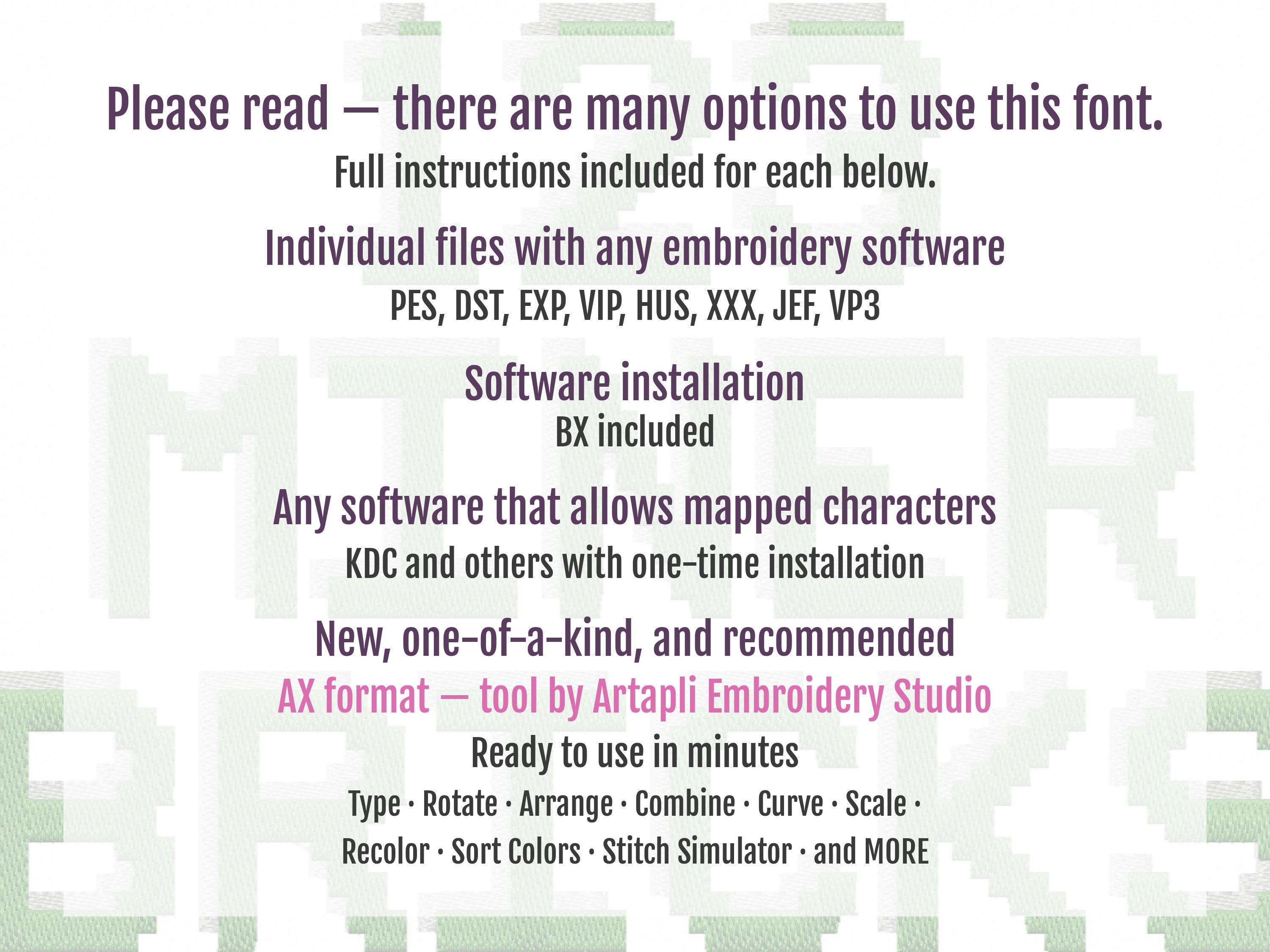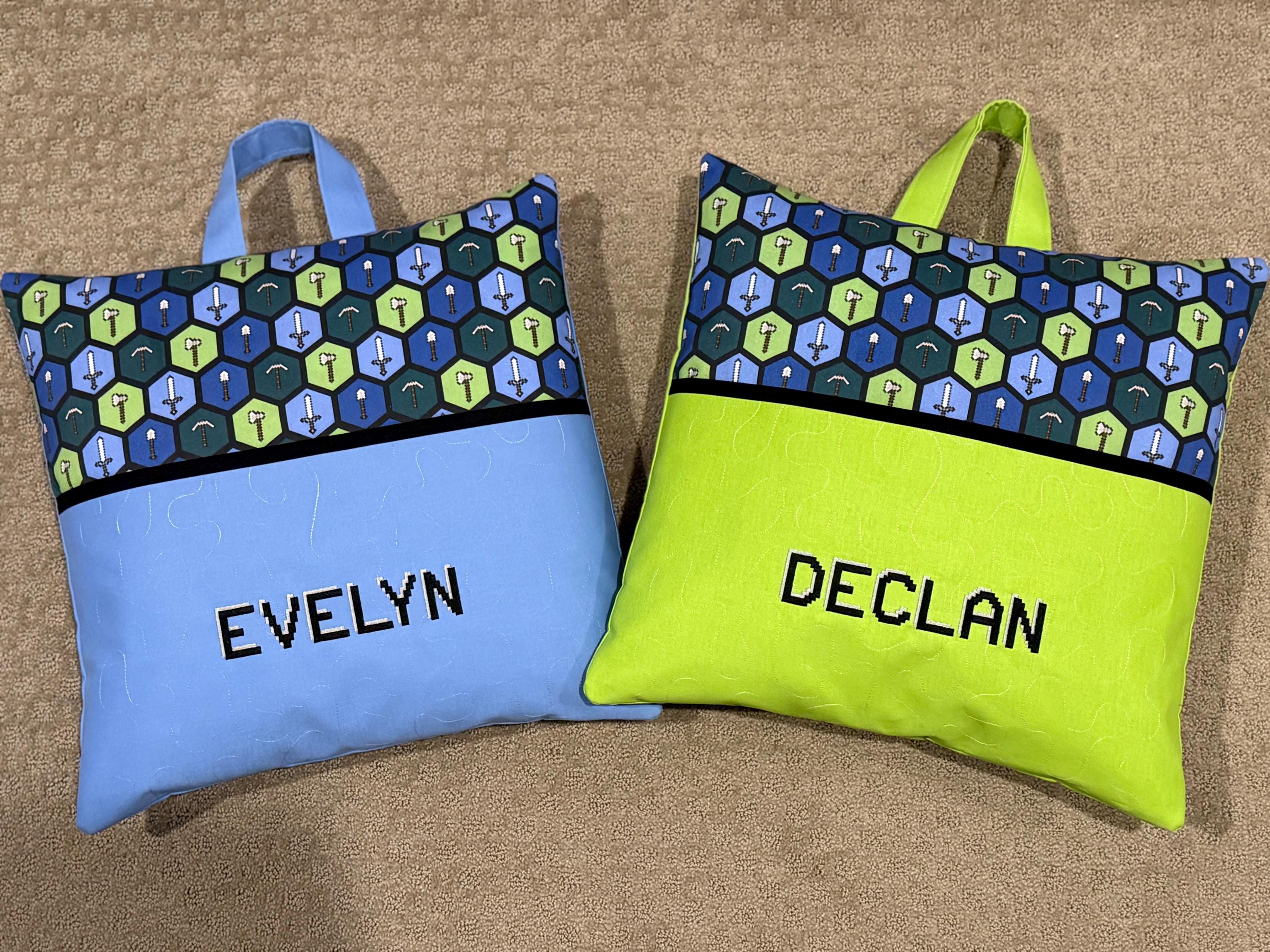
Miner Bricks pixel Shadow Font machine embroidery design, monogram, pixel font alphabet, brick letters assorted sizes & formats, BX included
Whole alphabet A-Z, uppercase letters,
numbers 0-9 and special punctuation marks